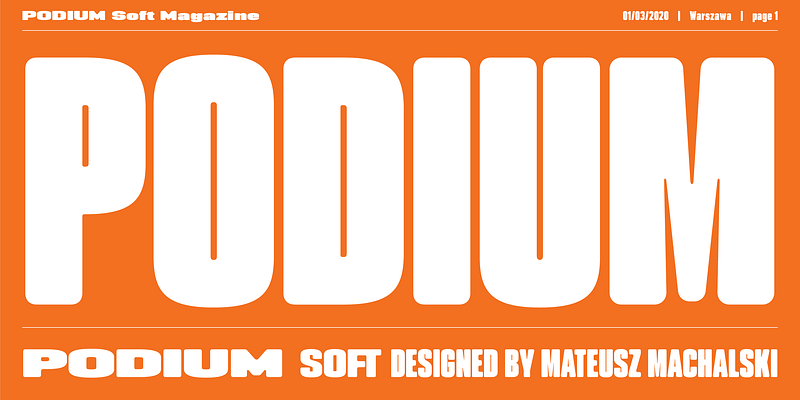
Podium Soft Variable Font Free Download is a clean, modern sans-serif typeface with a gentle, rounded aesthetic designed for digital interfaces, branding, and editorial content. With soft curves and a friendly tone, Podium Soft strikes a balance between professional structure and approachable warmth—making it an excellent choice for tech products, lifestyle brands, apps, and user-focused experiences.
As a variable font, Podium Soft offers seamless control over weight and optical adjustments, giving designers the flexibility to fine-tune typography to perfectly suit each layout. From lightweight captions to bold call-to-actions, this typeface adapts effortlessly while maintaining a consistent and polished look.
Podium Soft Variable Font Free Download is especially effective in UI/UX contexts where clarity, comfort, and tone matter. Its rounded corners soften the geometry of a typical sans-serif, creating a smooth reading experience without sacrificing legibility or performance.
Podium Soft is more than just sleek—it’s thoughtful, balanced, and built for the digital age. Use it to bring clarity, comfort, and cohesion to your next design.